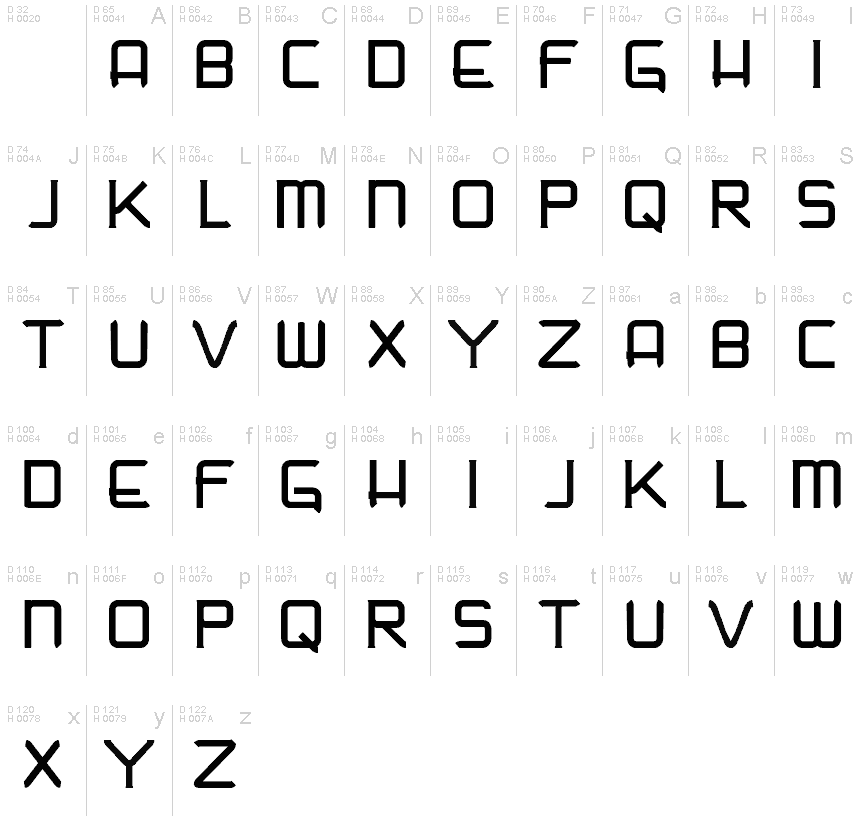
Nadir
Nadir is an expanded font that exudes a bold, assertive presence. Designed by Meghan Johnson, this typeface features striking geometric letterforms with clean lines and sharp corners, conveying a sense of modern sophistication.
The expanded width lends the characters an imposing, attention-grabbing quality, making Nadir an excellent choice for headlines, branding, and other applications where a strong visual impact is desired. Its versatility extends to editorial design, advertising, and even large-scale environmental graphics, where its distinctive aesthetic can elevate the overall aesthetic.
Nadir's unique characteristics make it a compelling option for designers seeking to create impactful, visually striking typographic compositions.